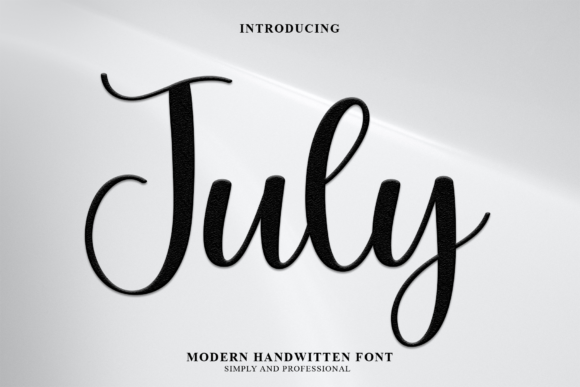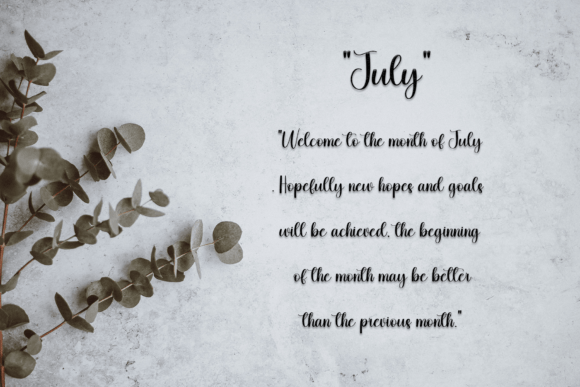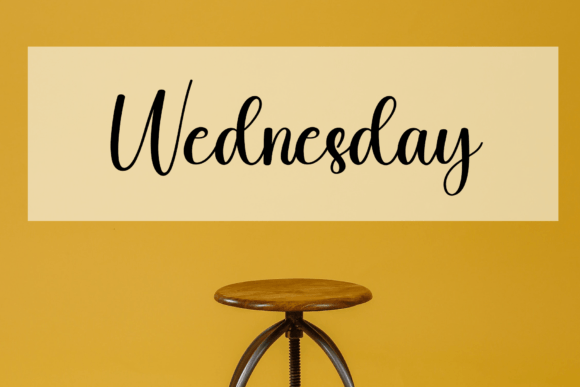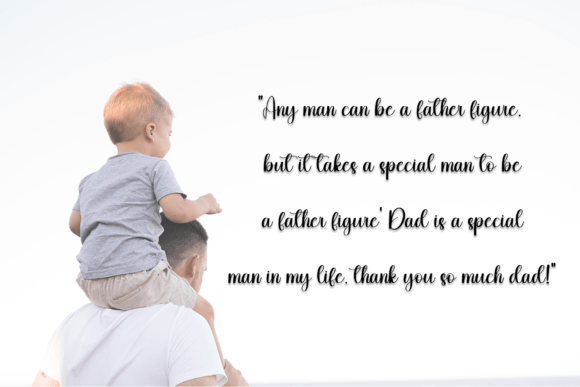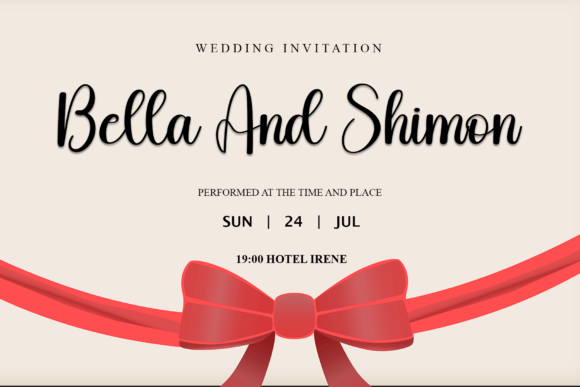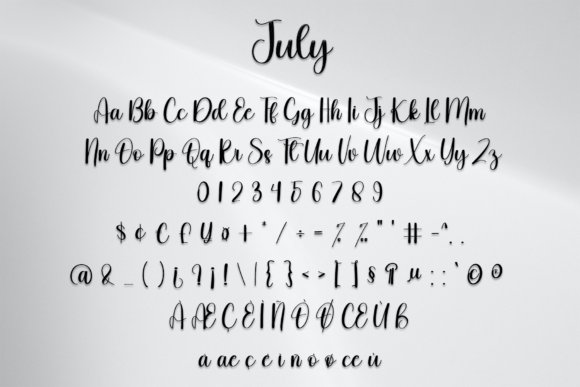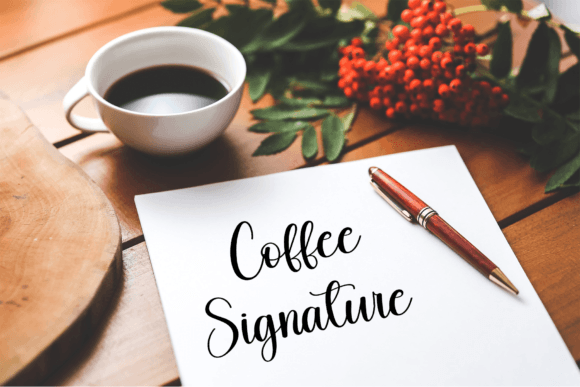
July Font
About July Font
“July” is a unique, round-lettered handwritten font that has been meticulously crafted to enhance any creation. This font offers a distinctive and stylish look, making it suitable for various applications such as writing titles, invitations, letters, and more.
The round-lettered style of “July” adds a touch of uniqueness and character to your designs. Whether you’re creating titles for creative projects or crafting invitations for special occasions, this font brings a distinct and eye-catching quality to your text.
Imagine using “July” to infuse your designs with a playful and creative vibe. Its round letters contribute to a visually appealing and cohesive look, making it suitable for a variety of products and design projects.
As you incorporate “July” into your designs, you’ll notice the careful craftsmanship of the round letters that contribute to its overall aesthetic. The font’s versatility allows it to adapt seamlessly to different types of products, making it a valuable asset for a range of creative endeavors.
Whether you’re working on digital graphics, print materials, or any other design project, “July” invites you to explore its unique and round-lettered style. It becomes a distinctive element in your designs, ensuring that your titles and text stand out with a touch of character and creativity.